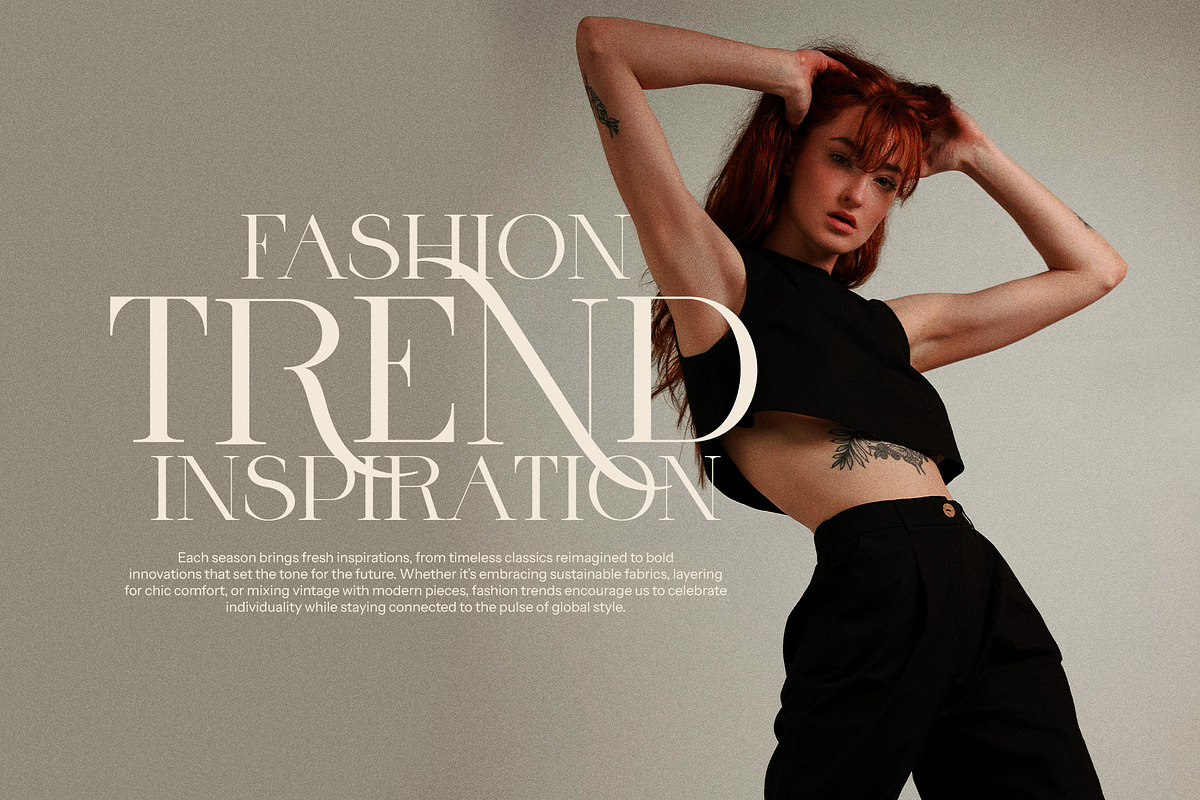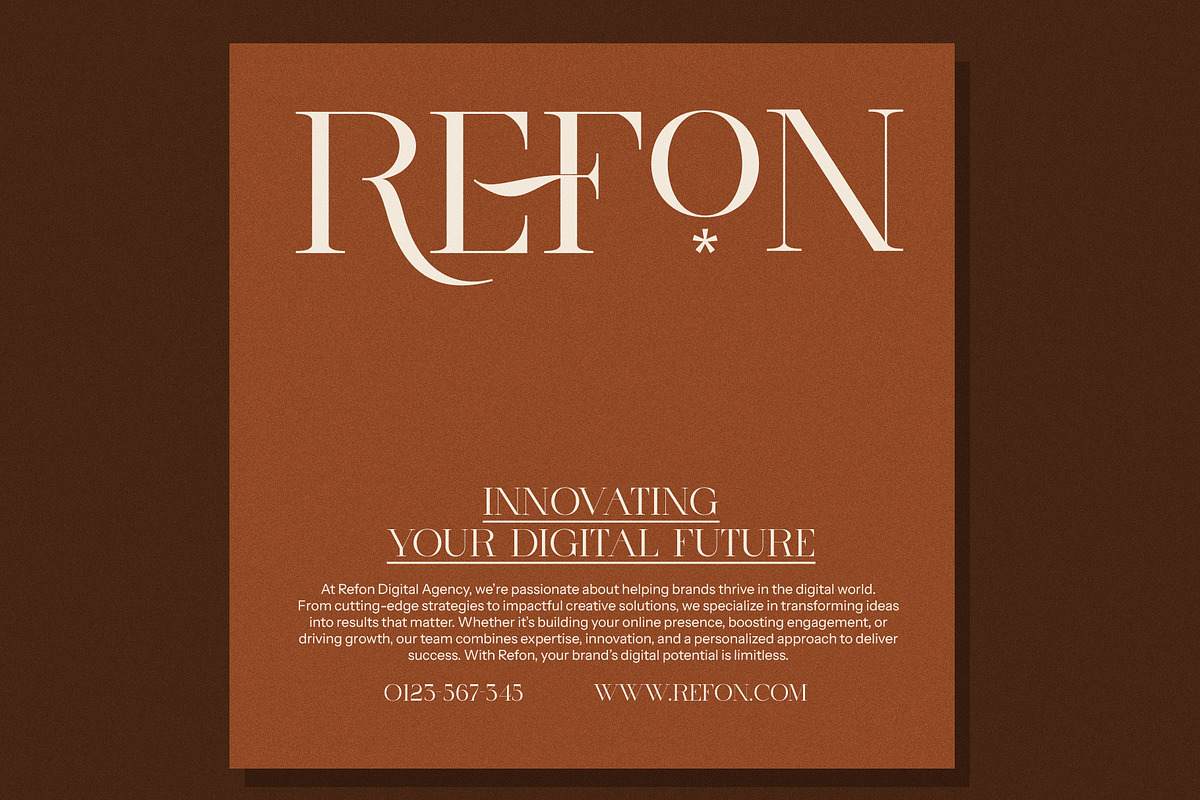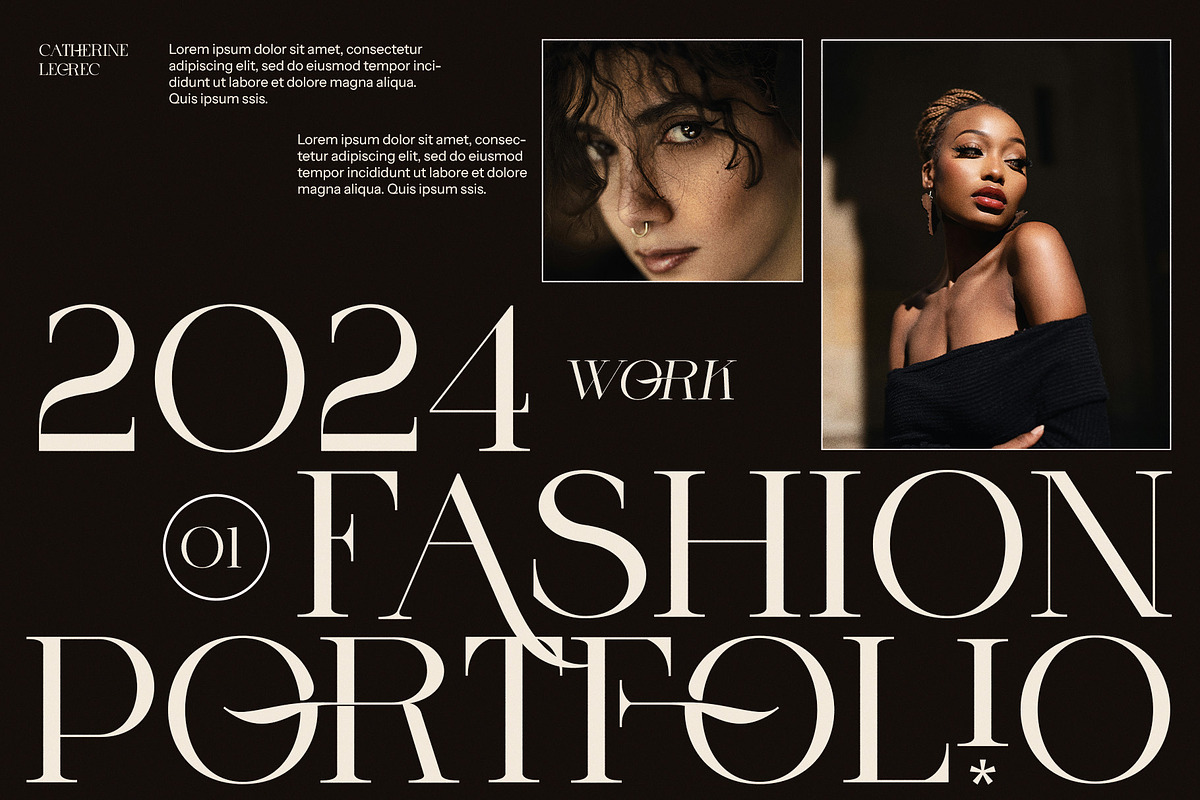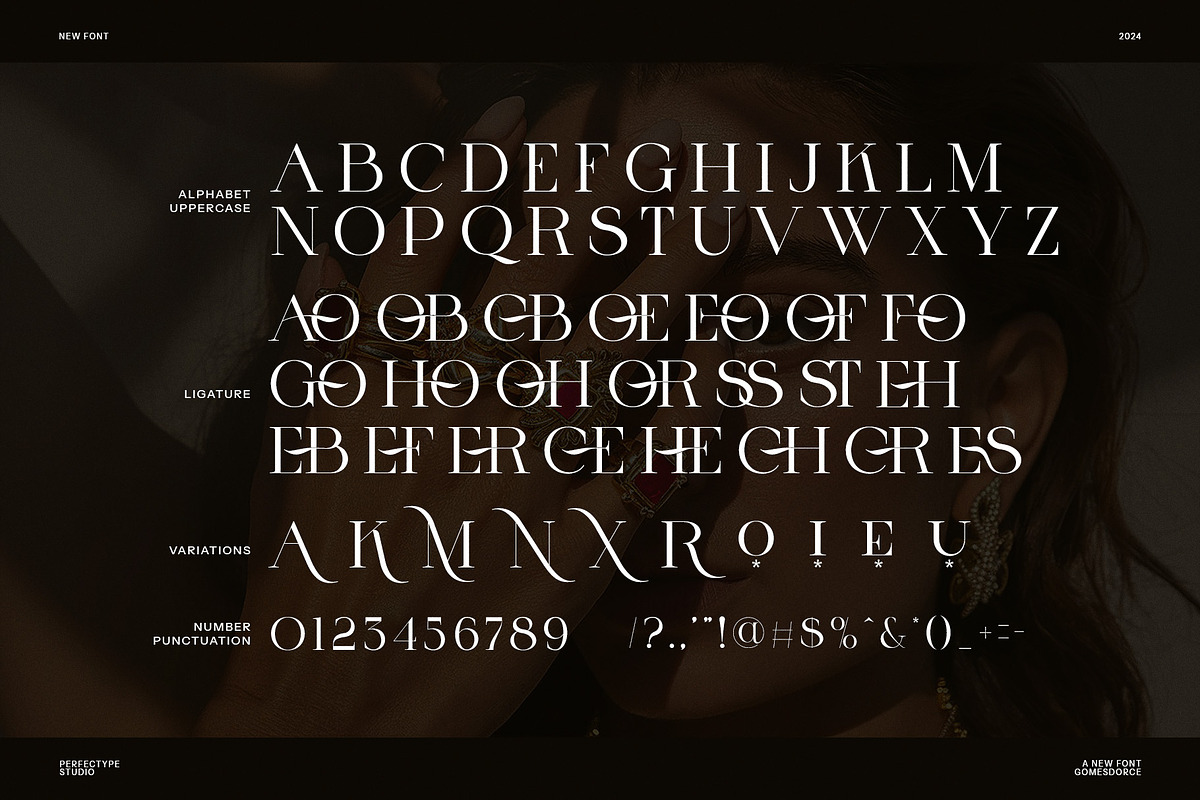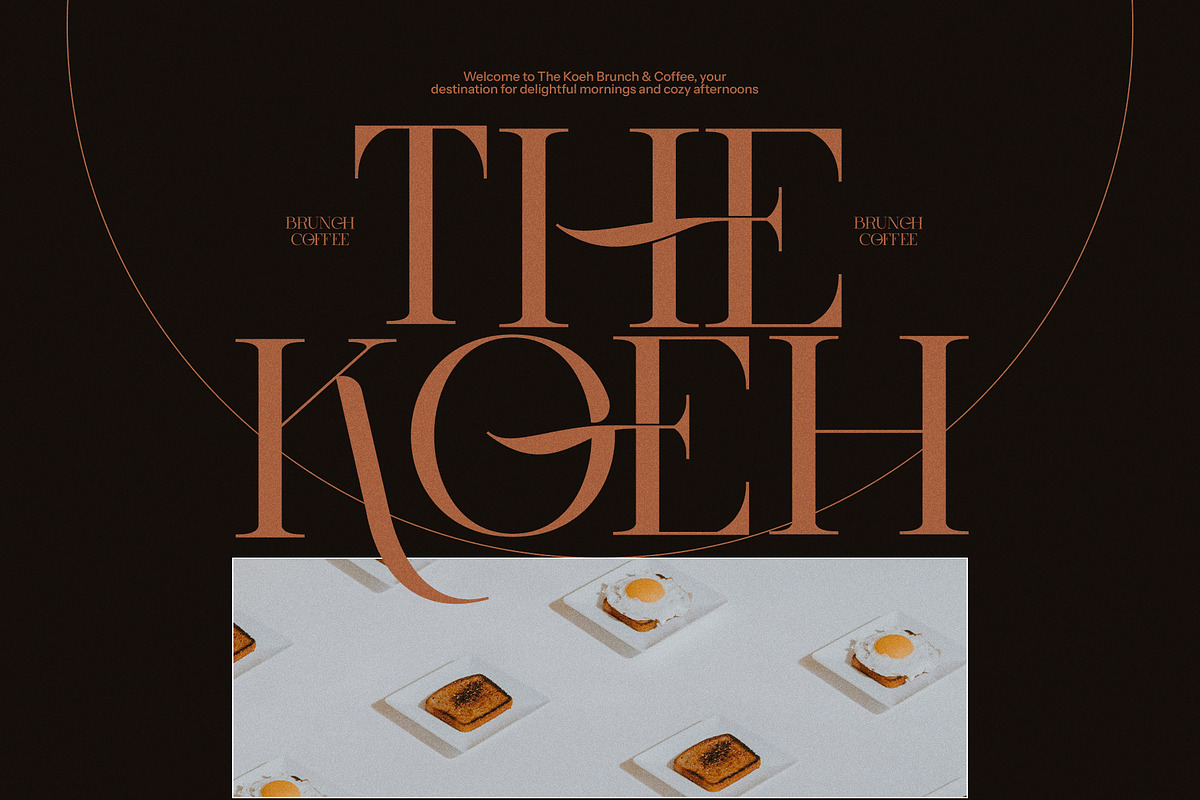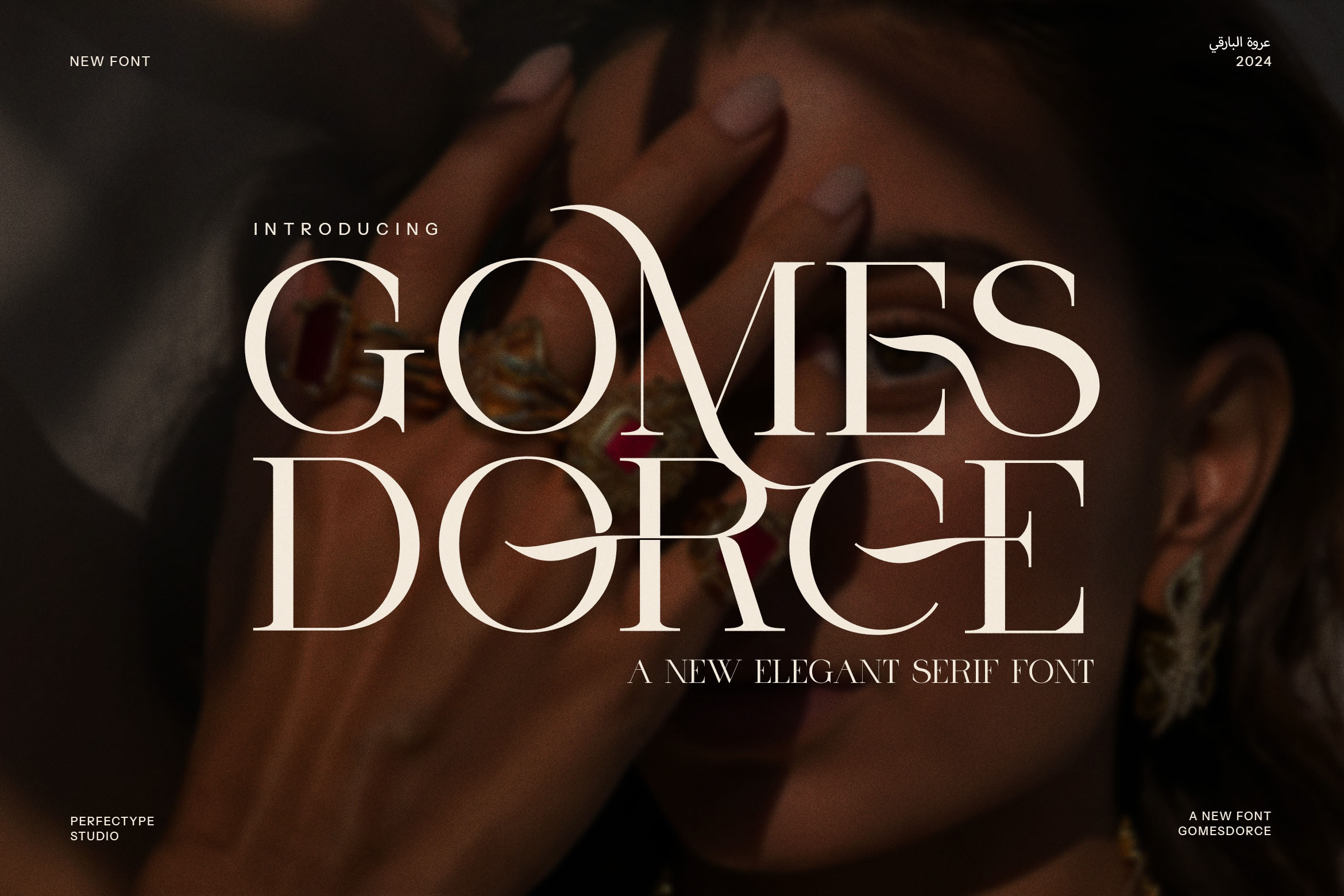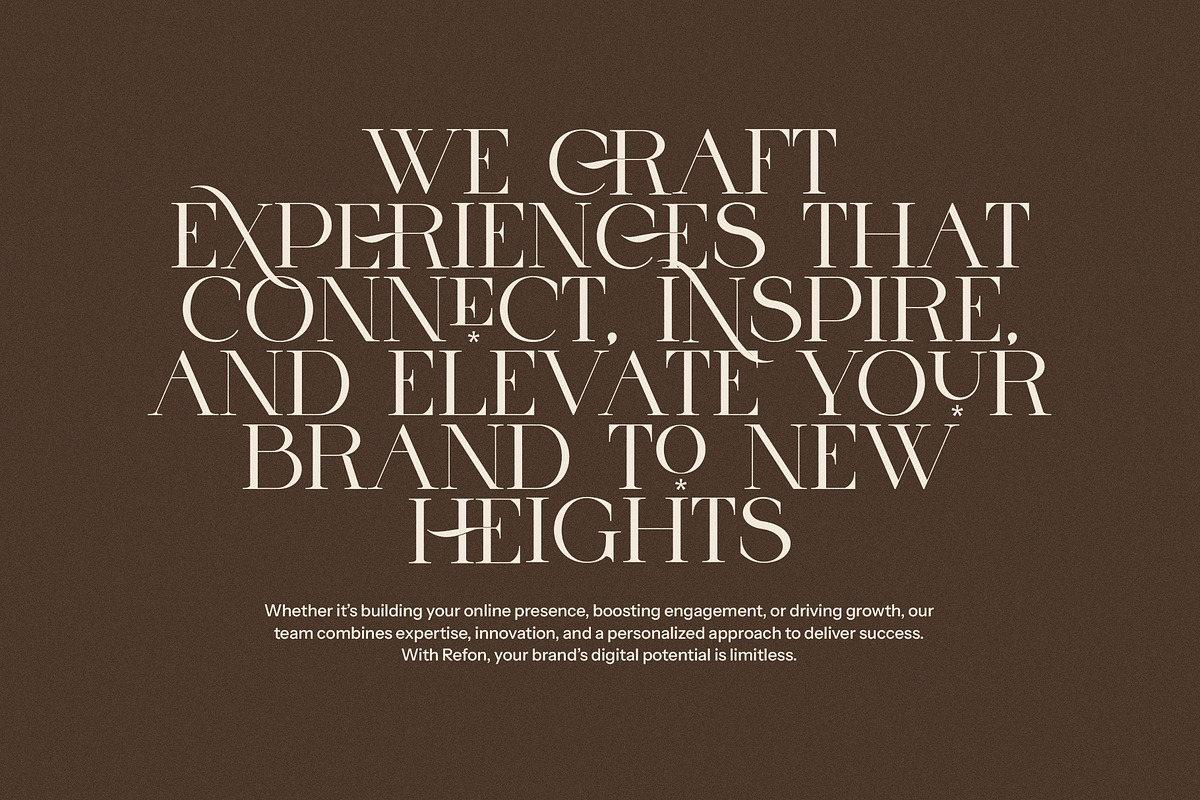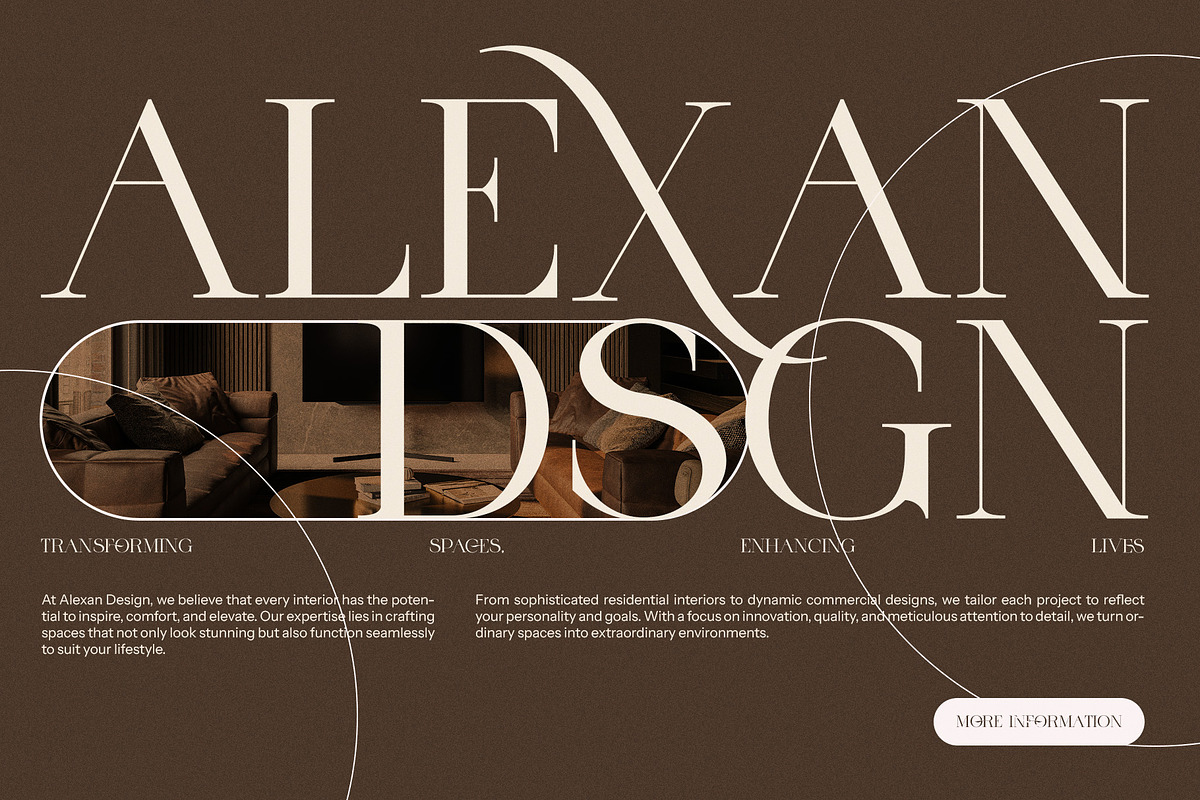
Gomes Dorce Display Serif Font
Gomes Dorce Display Serif Font is a sophisticated and modern typeface that seamlessly blends classic serif elements with a contemporary design. Known for its elegant curves and sharp edges, this font stands out through its distinctive ligatures and alternate characters. The innovative ligatures elegantly combine several letters into unique, cohesive shapes, offering a fresh and creative twist to traditional serif fonts.
Perfect for high-end branding, logos, and product designs, Gomes Dorce offers versatility across various design mediums. Whether you are creating a striking logo, a dynamic website, or an eye-catching magazine layout, this font ensures a memorable, professional look. Its bold yet refined aesthetic is ideal for luxury brands, boutique labels, and upscale product packaging.
With its elegant design and beautiful letterforms, Gomes Dorce is also perfect for use in advertisements, food branding, and editorial projects. The font’s unique ligatures provide an artistic touch that elevates any design, while its sophisticated serifs maintain readability and charm.
Gomes Dorce Display Serif Font brings a balance of modern elegance and timeless style to your creative work. Whether you are designing for print or digital platforms, this versatile font adds depth and personality to logos, websites, and promotional materials. Choose Gomes Dorce for a refined, high-impact design that makes a lasting impression, with a perfect blend of creativity and professionalism.